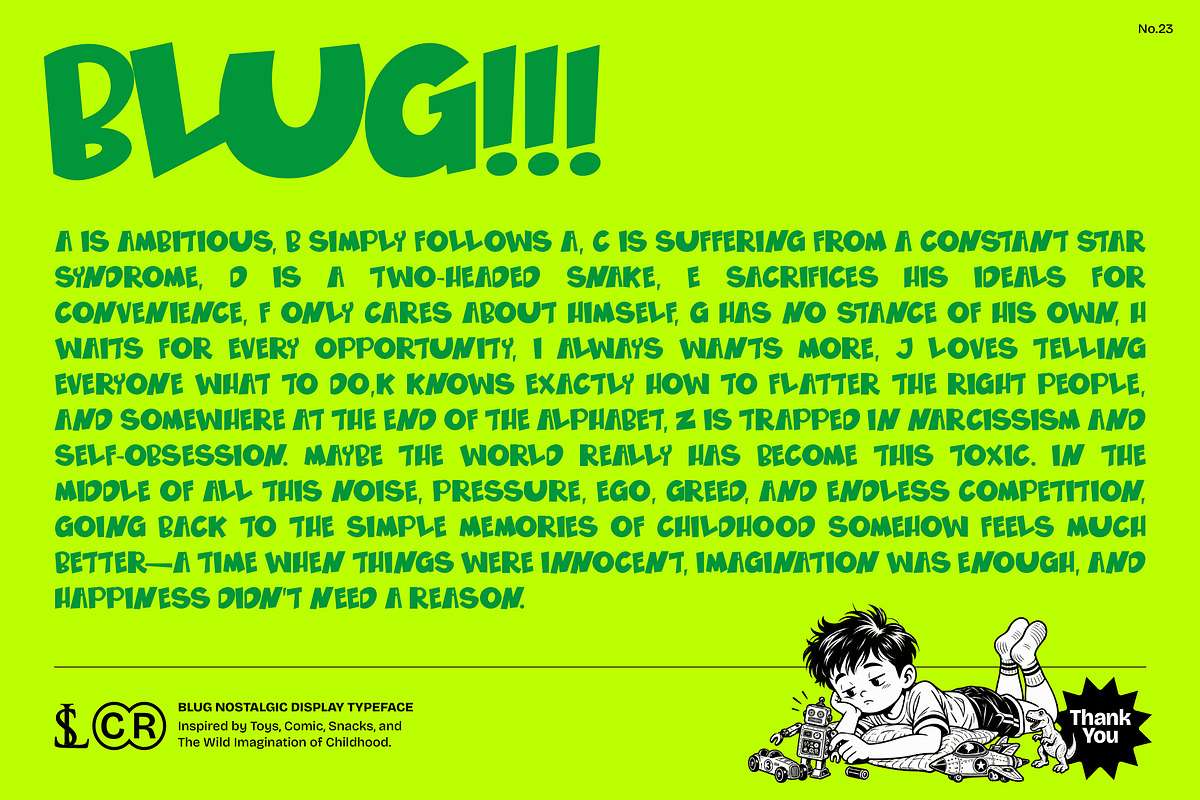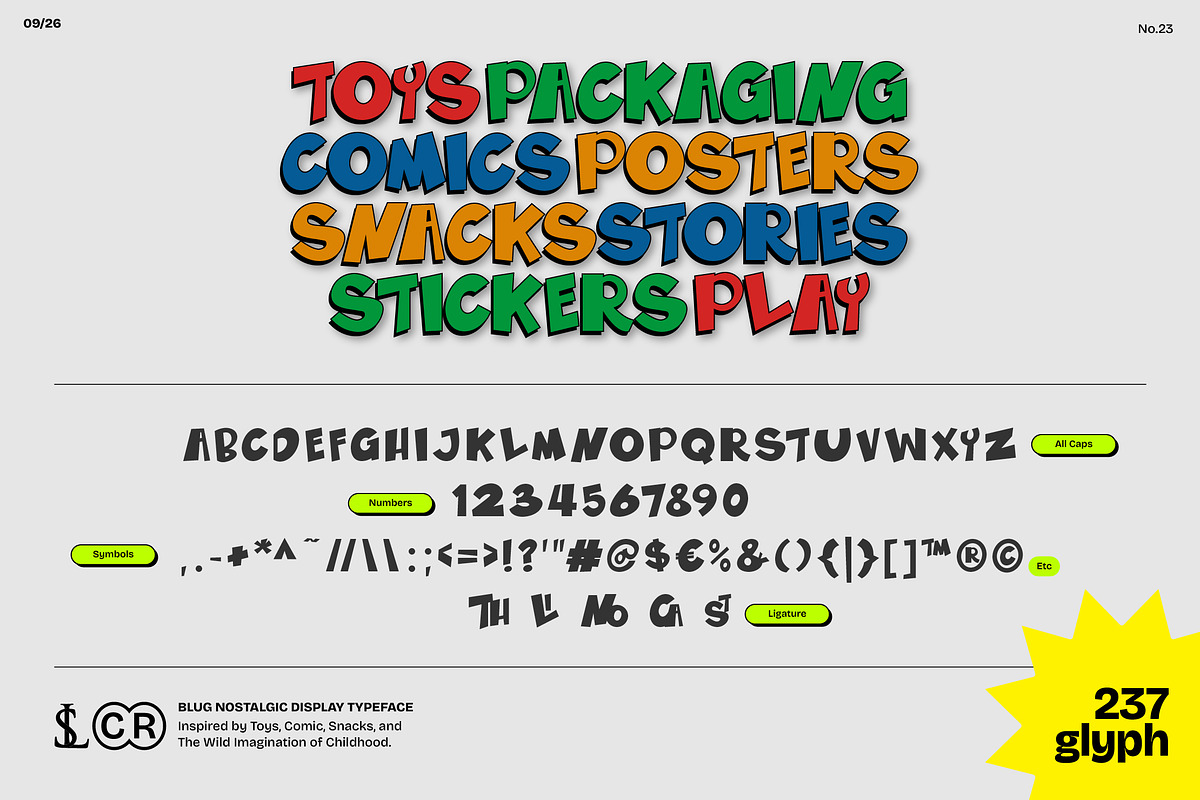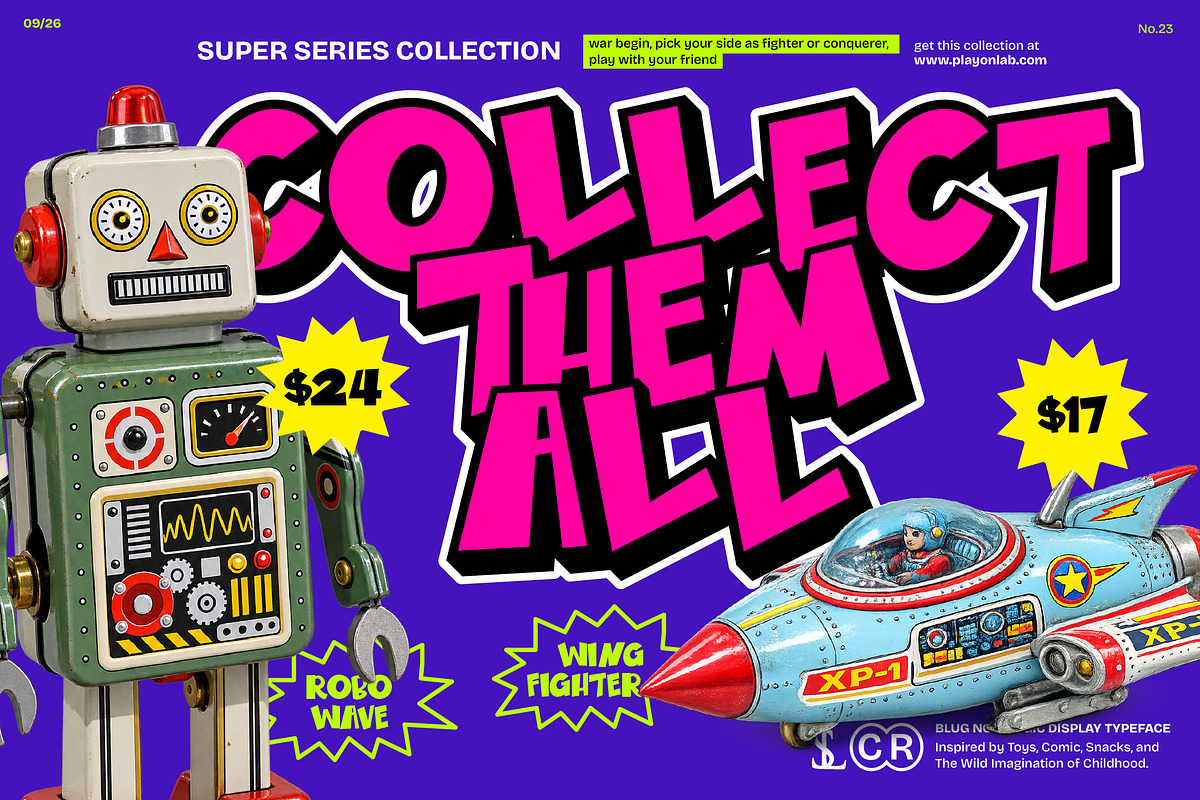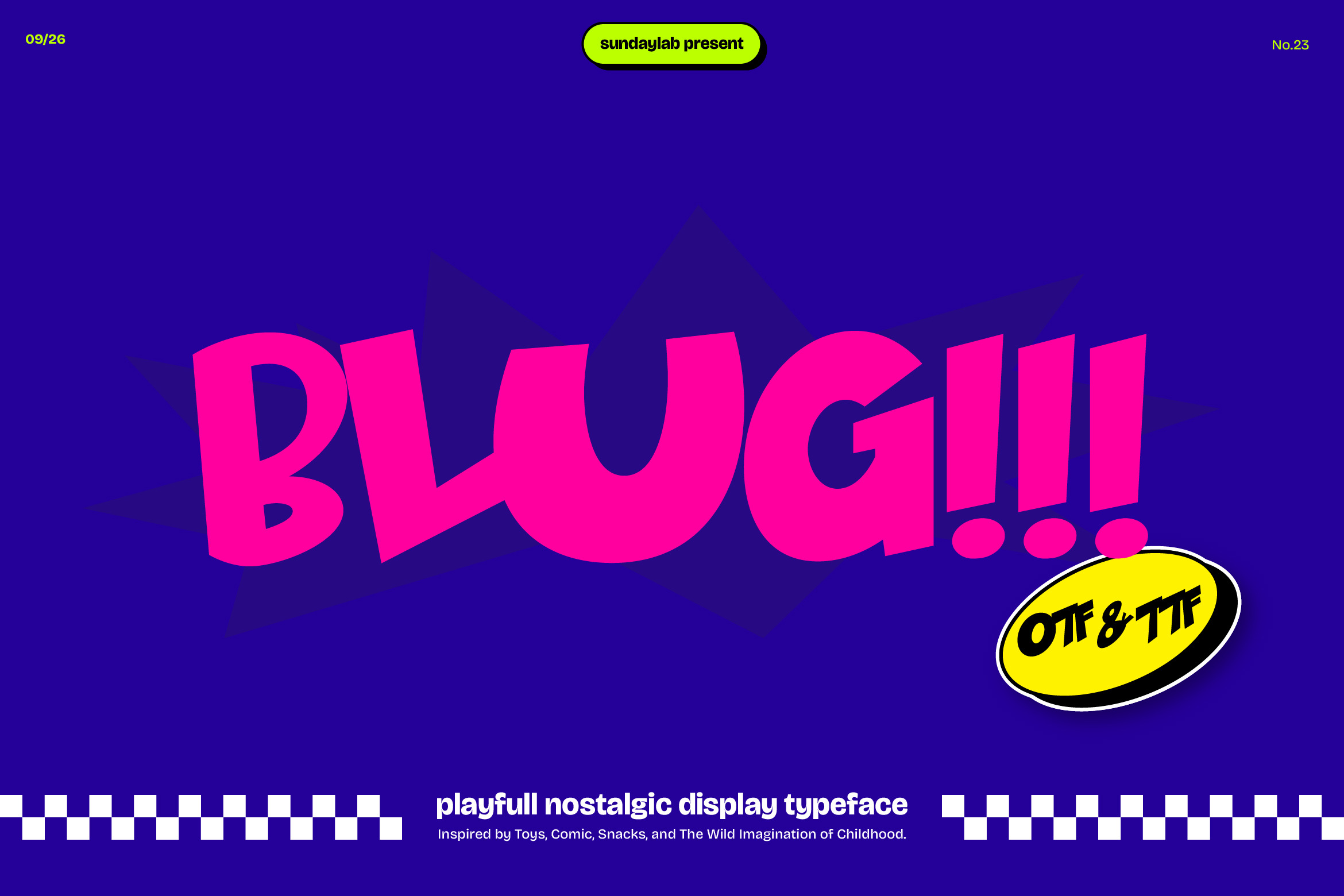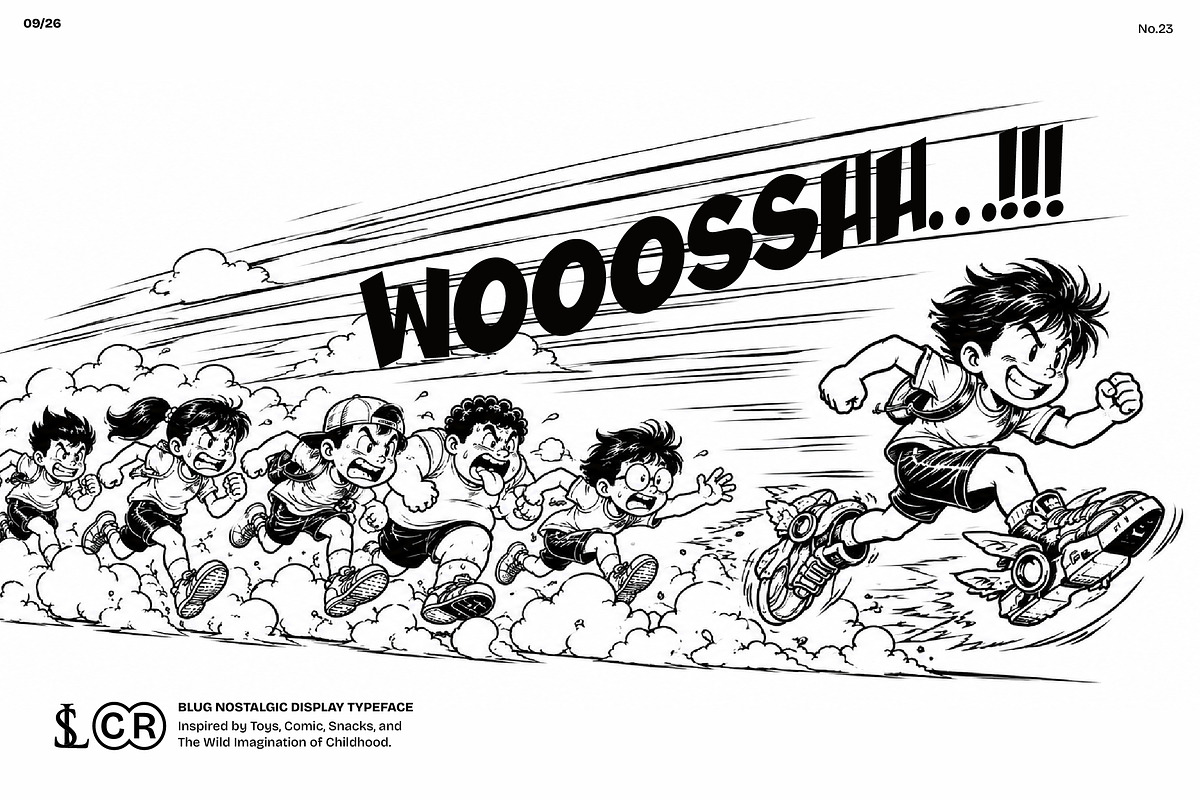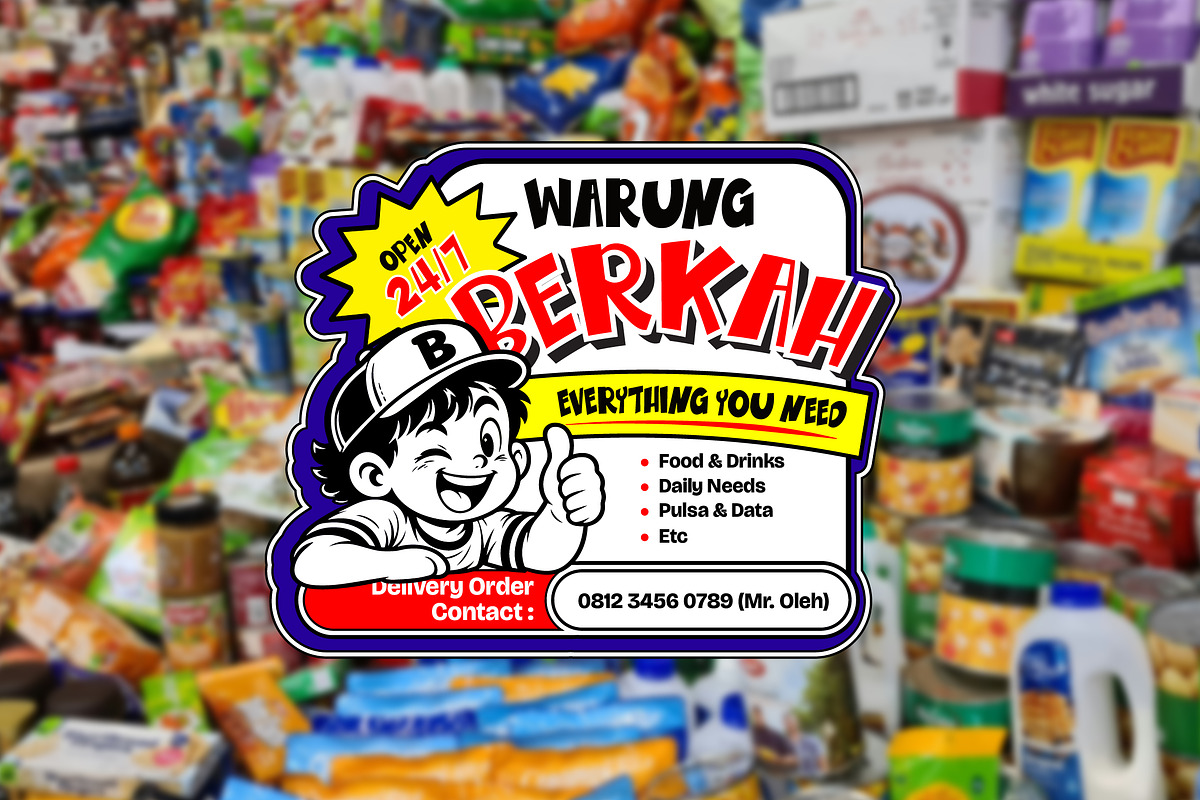
Blug Display Typeface
BLUG is a playful nostalgic display typeface inspired by the colorful world of childhood — from old-school toys, comic books, snack packaging, stickers, cartoons, and the imaginative visual culture of the 80s and 90s.
With its bold, irregular, energetic letterforms, BLUG is designed to instantly bring a fun and expressive personality to your typography. The slightly unpredictable shapes give your headlines a handmade comic-book character while keeping the overall forms strong and highly visible.
BLUG works especially well for toy packaging, comic posters, children's products, snack branding, stickers, merchandise, advertising, apparel graphics, logos, titles, social media artwork, and nostalgic branding projects.
The typeface includes 237 glyphs, uppercase characters, numbers, punctuation, symbols, and ligatures for creating more expressive typographic combinations.
Toy Packaging
Comic Posters
Snack Branding
Children's Products
Sticker Designs
Retro Advertising
Cartoon Graphics
Posters
Headlines
Logos
Packaging
Editorial Design
Nostalgic Branding
BLUG — bring back the fun, imagination, and visual chaos of childhood.